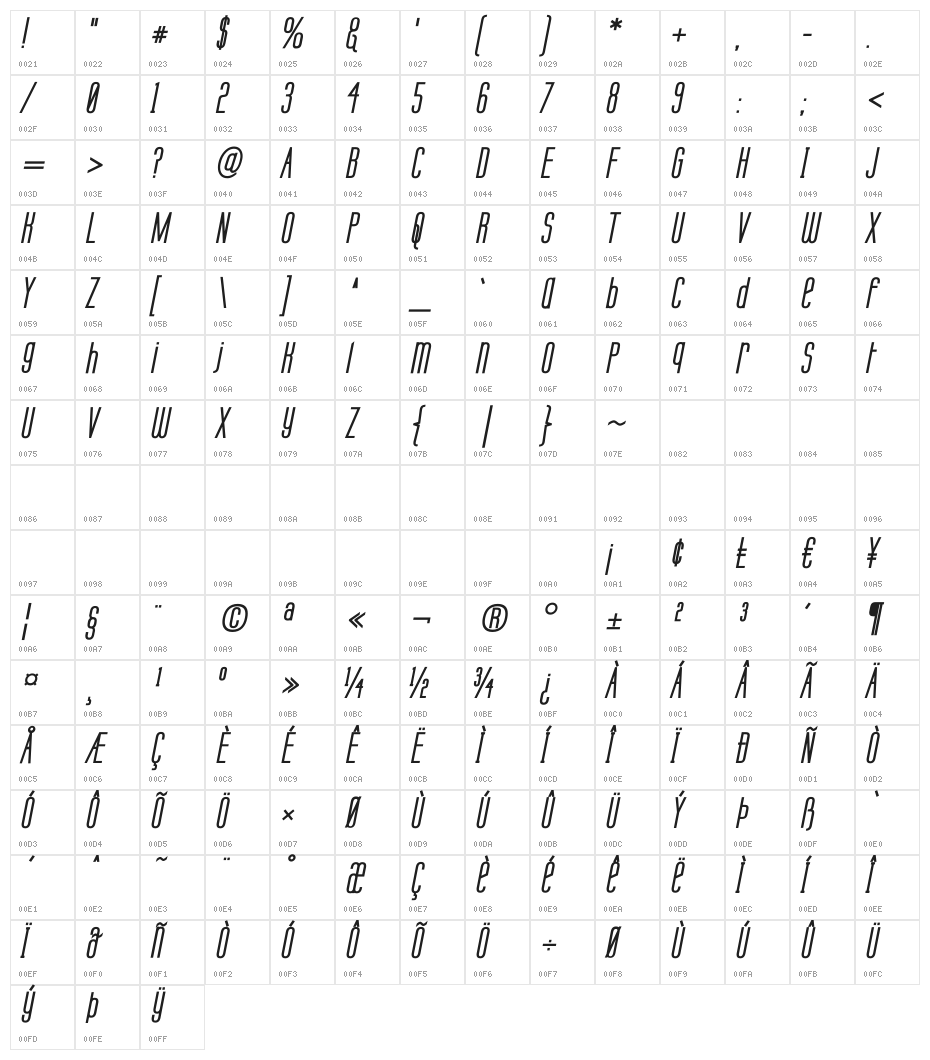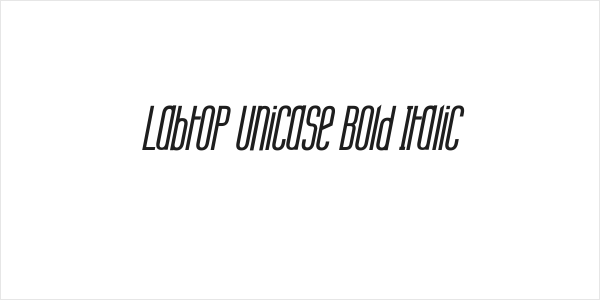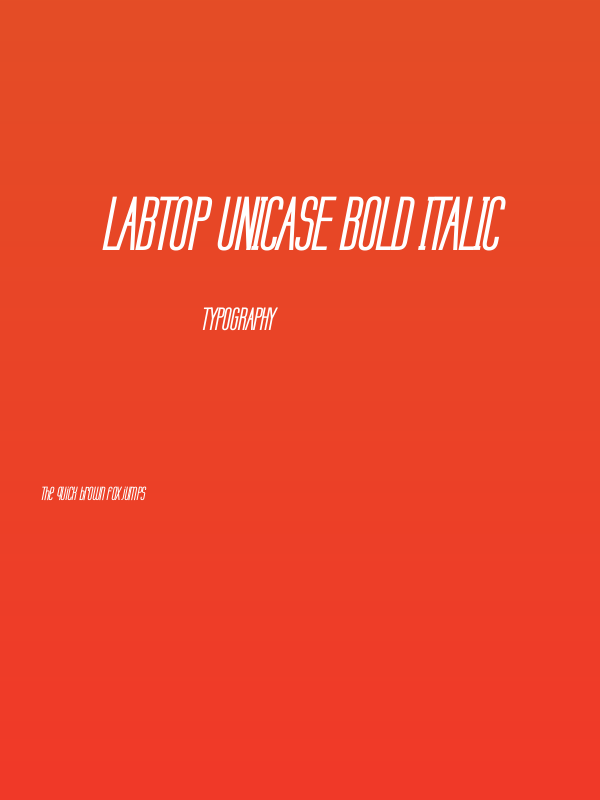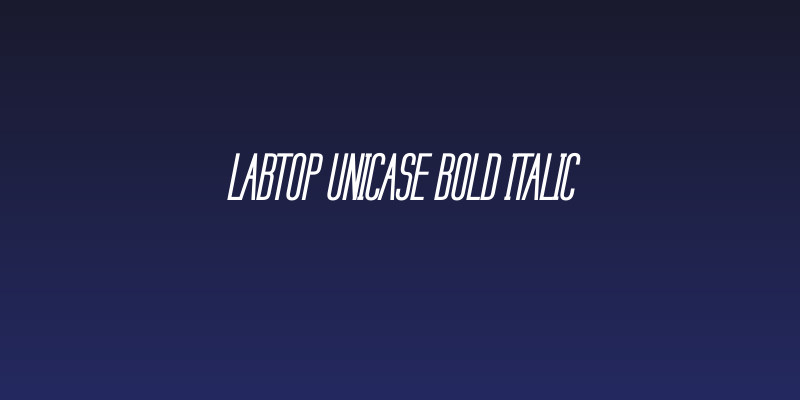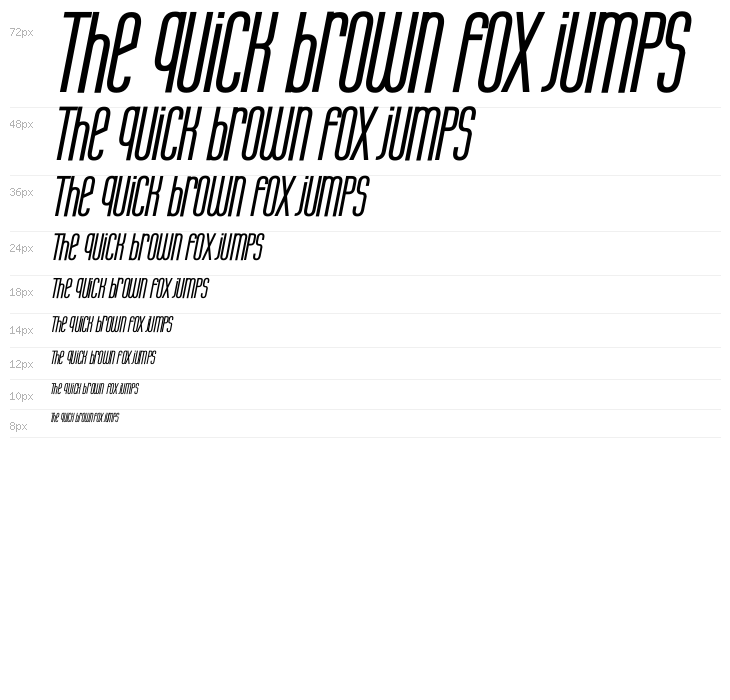
Labtop Unicase Bold Italic Font
Labtop Unicase Bold Italic Description
This font exhibits a bold and italicized style with a modern and dynamic appearance. The characters are elongated and slightly condensed, giving a sleek and streamlined look. The uppercase and lowercase letters maintain a consistent slant, enhancing the italic effect. The numerals are uniform in style, matching the overall aesthetic of the alphabet. Special characters are included, providing versatility for various design needs. The font's bold weight and italic slant make it suitable for attention-grabbing headlines and impactful designs.